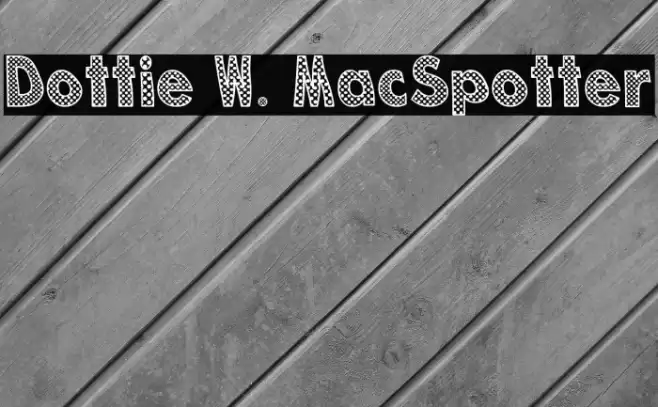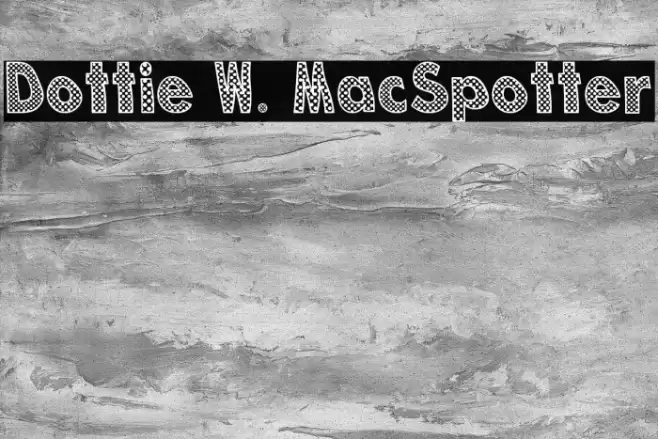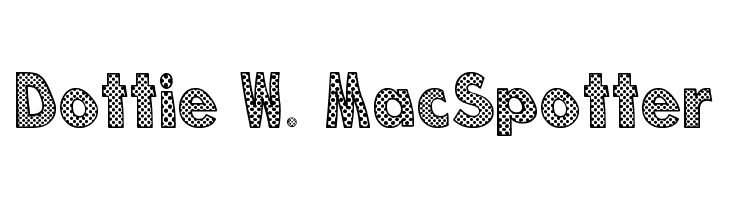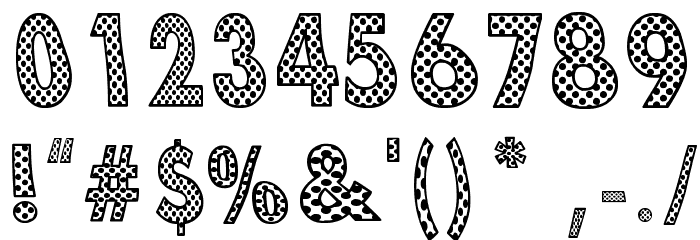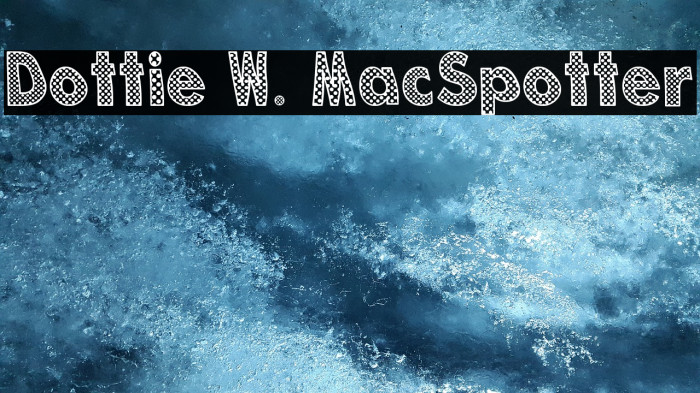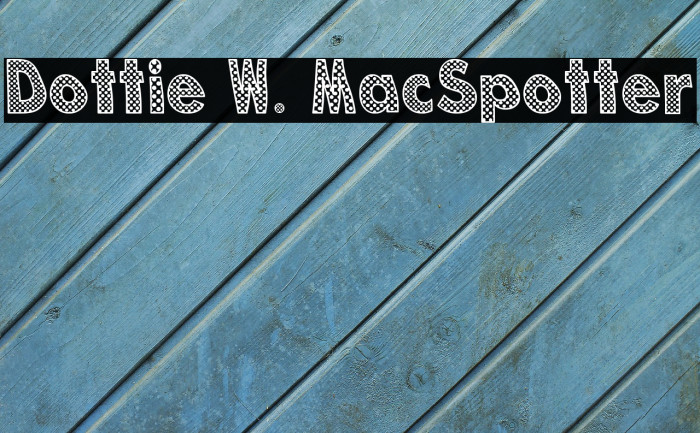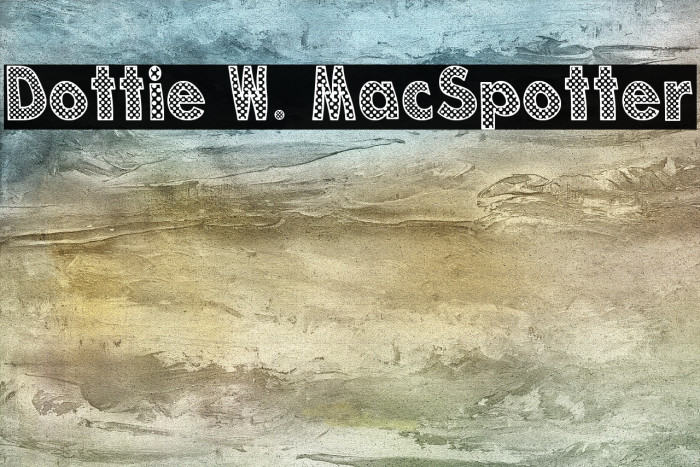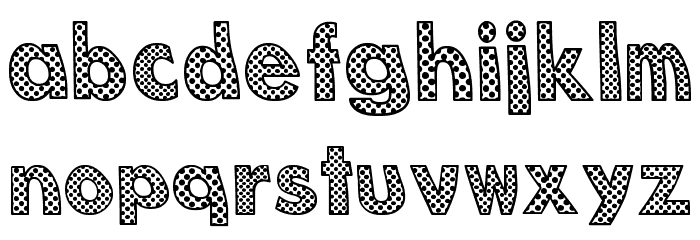
Dottie W. MacSpotter Font
Dottie W. MacSpotter Description
This playful and eye-catching font features a bold, dotted pattern within each character, creating a lively and dynamic appearance. The letters are uppercase and lowercase, with numbers and a variety of special characters included. The style is reminiscent of pop art, with a strong visual impact due to the high contrast between the black outlines and the white dots. The characters are evenly spaced, providing a balanced and harmonious look. This font is perfect for projects that require a fun and whimsical touch, such as children's books, party invitations, or playful branding.
A bold, dotted font with a playful and dynamic pop art style from Decorative fonts.
- Proposed Projects: Ideal for children's books, party invitations, playful branding, and creative posters.
- Overall Style: Playful, Pop Art